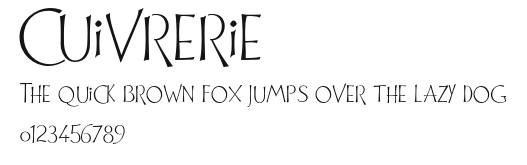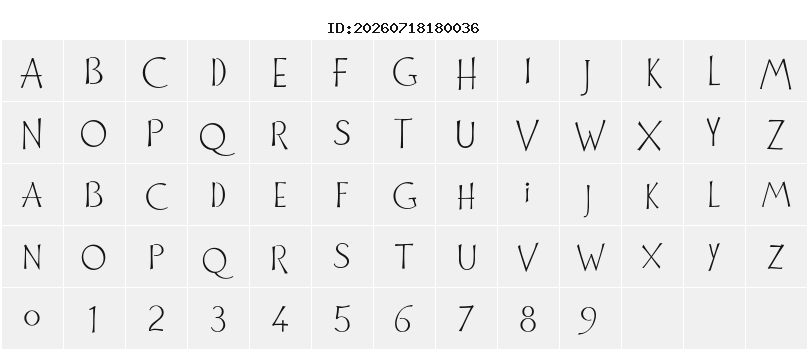
Cuivrerie Preview
• Font Name: Cuivrerie
• Full Font Name: Cuivrerie
About Cuivrerie.otf
Cuivrerie.otf is a modern, elegant sans-serif font designed for ultimate readability and visual harmony. Perfect for branding, headlines, web design, and print materials.